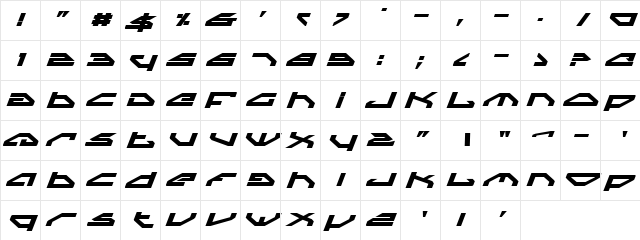
Spylord Bold Expanded Italic BoldExpandedItalic Font Preview
Design Context for Spylord Bold Expanded Italic Typeface
Spylord Bold Expanded Italic is a composed and adaptable typeface that performs quietly and consistently across a wide range of design contexts. Its italic angle brings a sense of urgency and motion to the letterforms. The heavy weight commands attention and anchors typographic hierarchies.